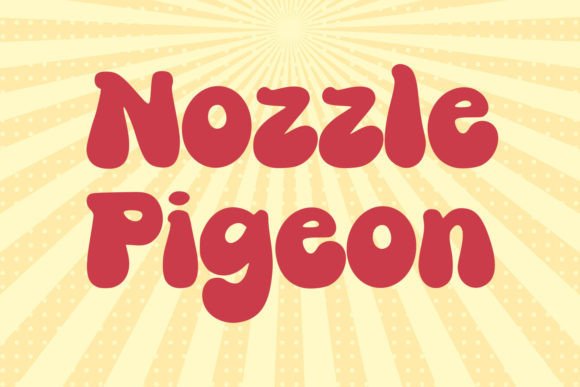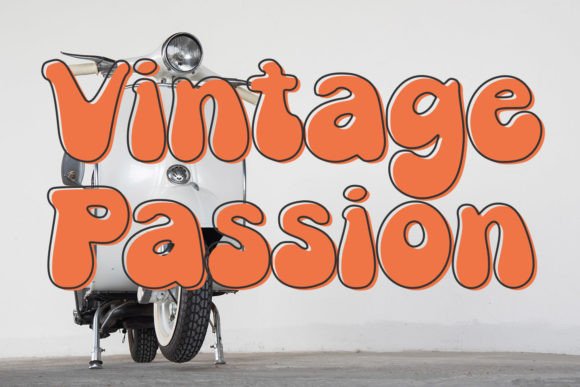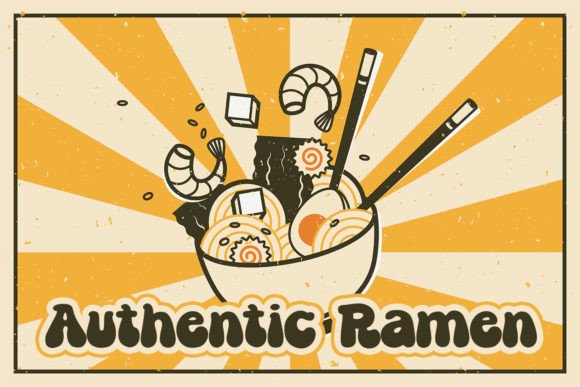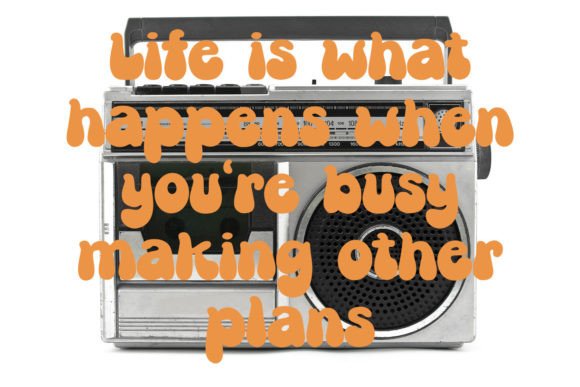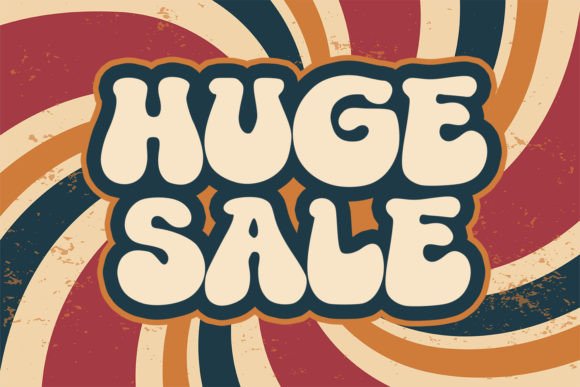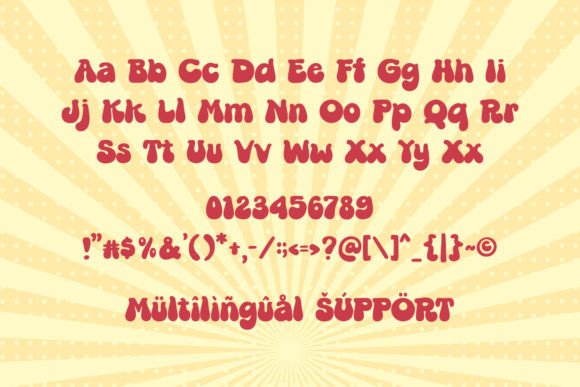
Introduction to Beach Cake Font
BEACH CAKE – groovy sans serif- BEACH CAKE is retro sans serif in cute touch.
It is great for branding, quotes, logos, t-shirt designs, tote bag designs, cards, banners, social media, and other projects that need groovy style .
Key Features of Beach Cake Font